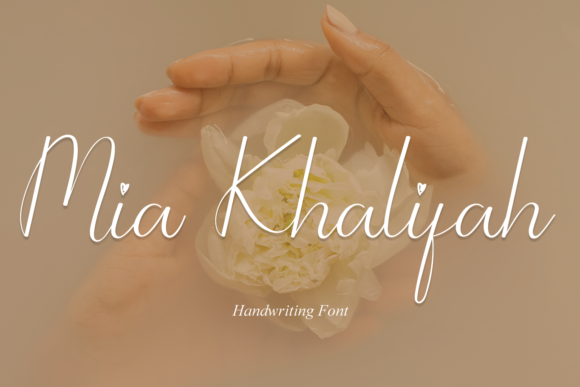
Dive into a world of exquisite typography with Mia Khalifah Font - a script font family crafted to leave an indelible mark on your design projects. Born from the creative genius of erik studio, this font exudes a rare blend of classic calligraphy and a refreshingly modern aesthetic.
Mia Khalifah Font is not merely a font; it's an artistic expression that breathes life into your words. Its graceful curves and elegant strokes evoke a sense of timeless beauty, while its contemporary flair ensures it fits seamlessly into the demands of modern design. Experience the joy of crafting logos, branding, posters, and social media graphics that radiate sophistication and charm.
With Mia Khalifah Font, you'll discover a font that captivates and enchants, drawing eyes and hearts alike. Its versatility shines through in its ability to transform ordinary text into breathtaking works of art. Whether you're creating marketing campaigns, product packaging, or simply adding a touch of elegance to your personal projects, Mia Khalifah Font is your perfect companion.
Immerse yourself in the world of Mia Khalifah Font and unleash your creativity. Its intuitive design makes it a joy to use, allowing you to effortlessly achieve stunning results. Each character is carefully crafted to flow seamlessly into the next, creating a visual symphony that dances across the page.
Don't settle for ordinary fonts that blend into the background. Embrace the allure of Mia Khalifah Font and watch your designs blossom into captivating masterpieces. Its unique charm and captivating presence will leave a lasting impression on your audience, ensuring your message resonates long after the page is turned.